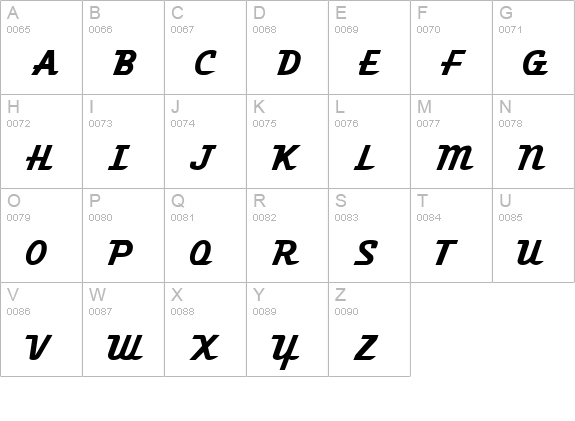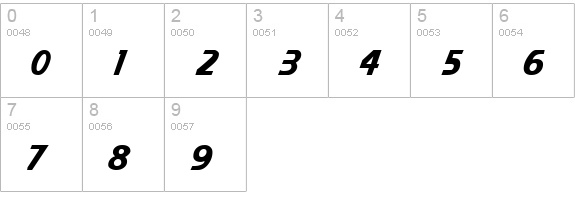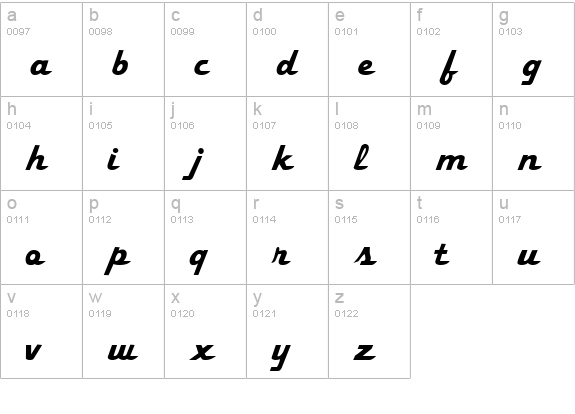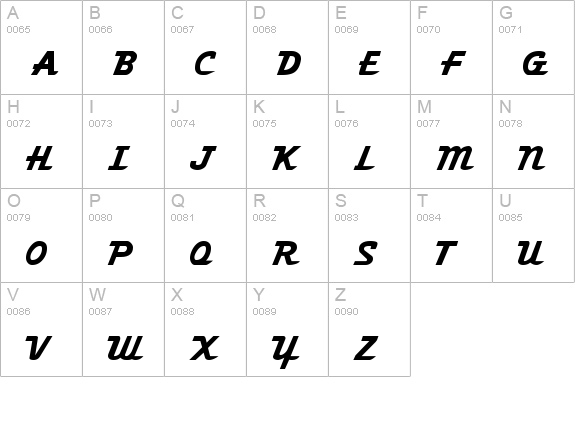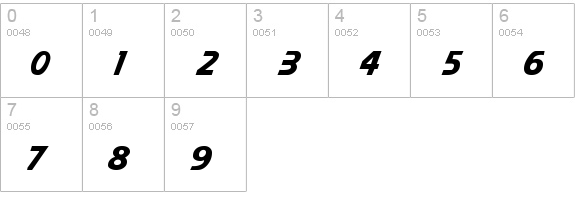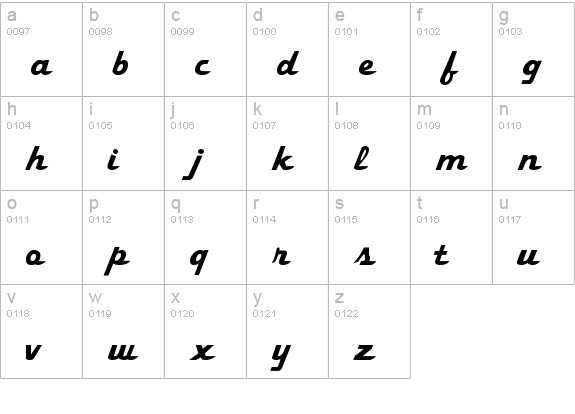
TrekkerTwo Regular Font Details
TrekkerTwo Regular is the standard, neutral variant in the TrekkerTwo typeface family \xE2\x80\x94 well suited to general body text, paragraphs, and standard typographic work.
TrekkerTwo Regular font is a captivating and versatile typeface that effortlessly combines modernity with a touch of elegance. With its sleek and clean lines, this font exudes a sense of professionalism and sophistication, making it perfect for a wide range of design projects. Whether you're creating eye-catching logos, stylish branding materials, or impactful headlines, TrekkerTwo Regular font will ensure that your message stands out. Its well-balanced letterforms and impeccable spacing guarantee readability and legibility, even at small sizes. But what truly sets TrekkerTwo Regular font apart is its accessibility. It is freely available to download at FontsMarket.com, allowing designers and creatives to effortlessly integrate this stunning typeface into their work without any hassle. Whether you're a professional designer or a hobbyist, you can now enjoy the beauty and versatility of TrekkerTwo Regular font without any limitations. So why wait? Unleash your creativity and elevate your designs with the timeless elegance of TrekkerTwo Regular font. Download it for free today at FontsMarket.com and experience the power of this exceptional typeface in all your projects.